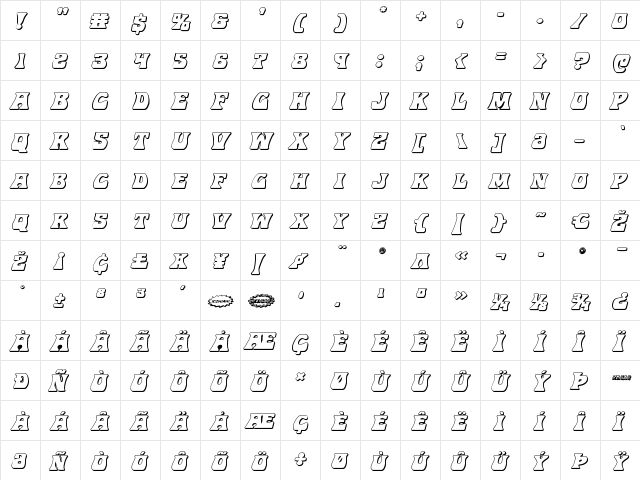
Hip Pocket 3D Italic Italic
Design Context for Hip Pocket 3D Italic Typeface
Hip Pocket 3D Italic is a composed and adaptable typeface that performs quietly and consistently across a wide range of design contexts. Its italic angle brings a sense of urgency and motion to the letterforms.